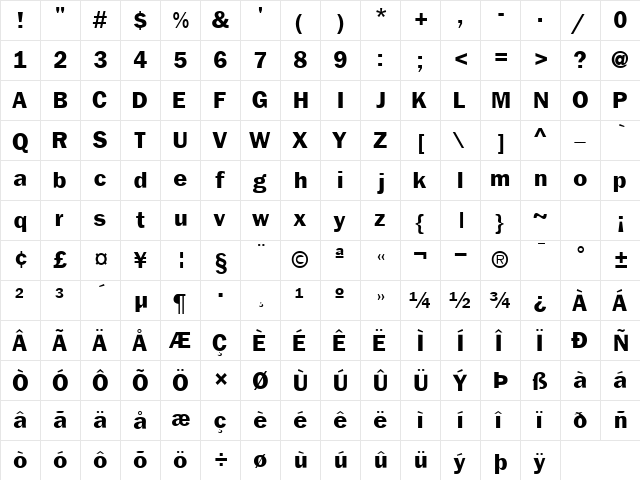
FranklinGothicBlackSSK Regular
Design Context for FranklinGothicBlackSSK Typeface
FranklinGothicBlackSSK takes a clean, functional approach — its unadorned letterforms prioritise legibility and work reliably across screen and print environments.
Font Pairing: Works well alongside a characterful serif or display font that can carry the expressive load while FranklinGothicBlackSSK handles the functional copy.
Pro Tip: Use FranklinGothicBlackSSK for UI labels, navigation, and short-form body copy where clean legibility is the priority.